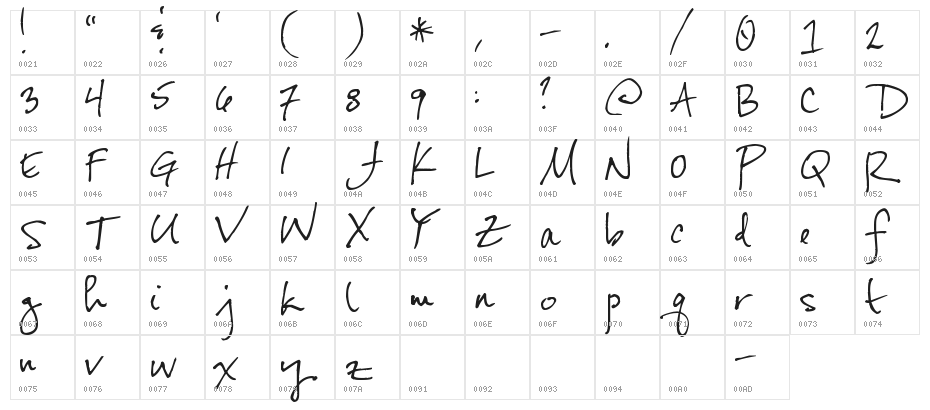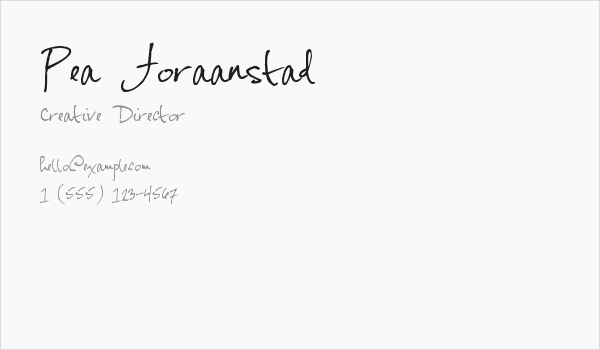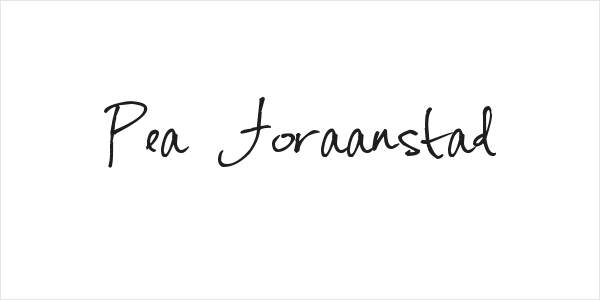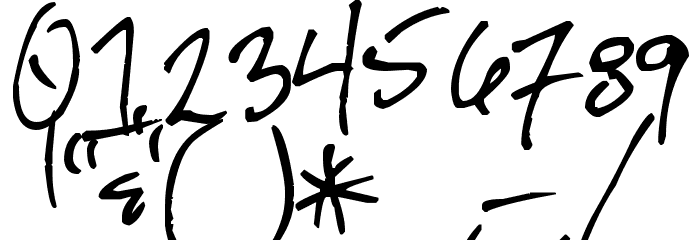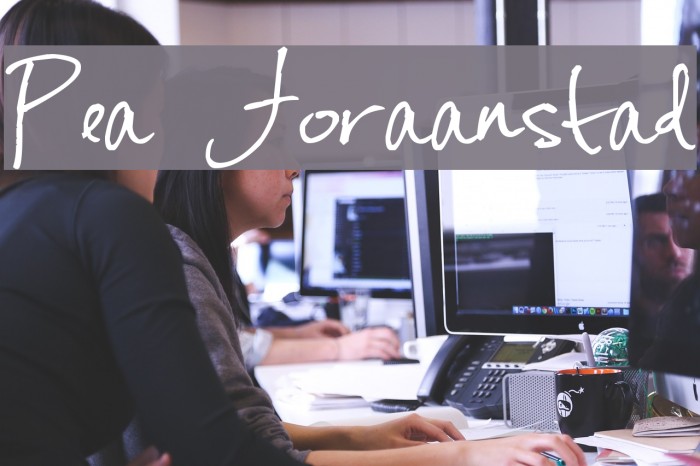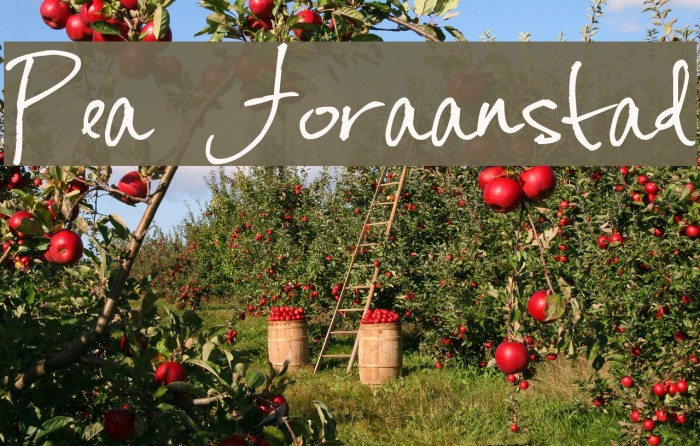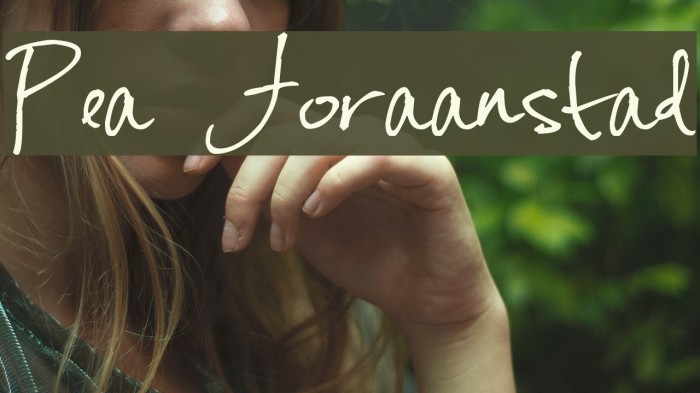
Pea Joraanstad Font
Pea Joraanstad Description
This font exudes a casual and personal touch, reminiscent of handwritten notes with a lively and spontaneous flair. The letters are slightly slanted, giving a sense of movement and energy. The strokes vary in thickness, adding to the handwritten feel, while maintaining legibility. The uppercase letters are bold and prominent, while the lowercase letters are more fluid and connected, enhancing the script-like quality. Numbers and special characters follow the same dynamic style, making the font versatile for various uses.
| Overall Style | Casual |
| Use Case | Logos, Invitations, Greeting Cards |
| Proposed Projects | Ideal for personal notes, invitations, greeting cards, and creative projects that require a personal touch. |